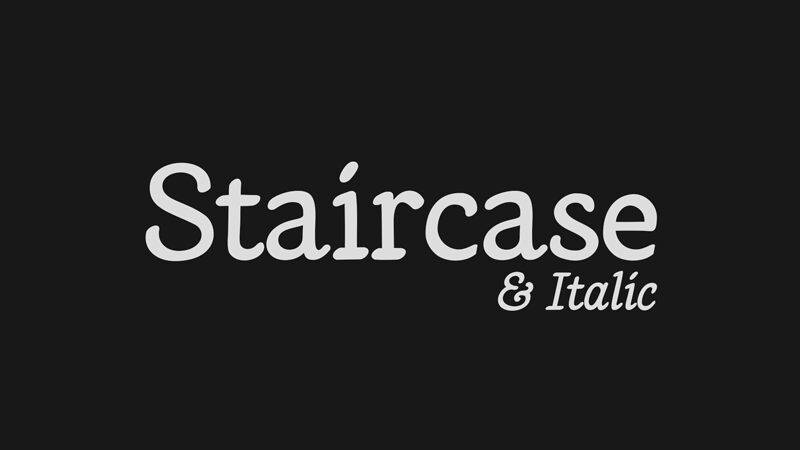
LT Staircase Italic
LT Staircase Italic is a sleek and modern font designed by LyonsType. Its semi-light weight and italic style make it perfect for projects that require a touch of elegance and sophistication, such as high-end fashion magazines, luxury branding materials, or wedding invitations. The unique staircase-inspired design adds an element of creativity to any project, while the italicized letters convey a sense of movement and fluidity. Whether you're designing for print or digital media, LT Staircase Italic is sure to make your text stand out with its distinctive style and impeccable legibility.
A body text font usable font 1930's title cards or anything of the like.
Part of LyonsType Classics.